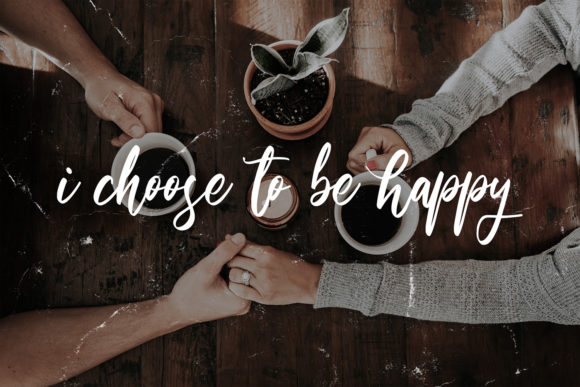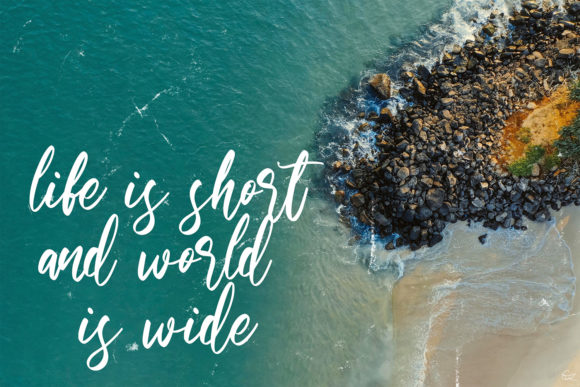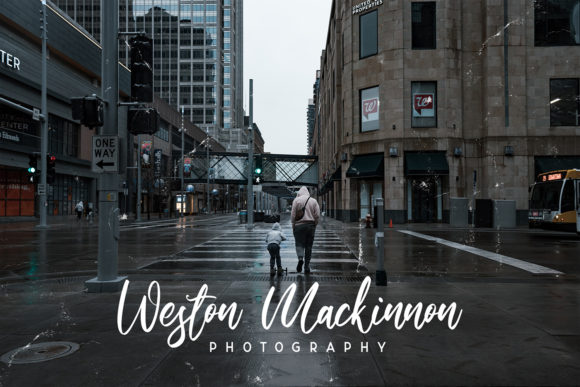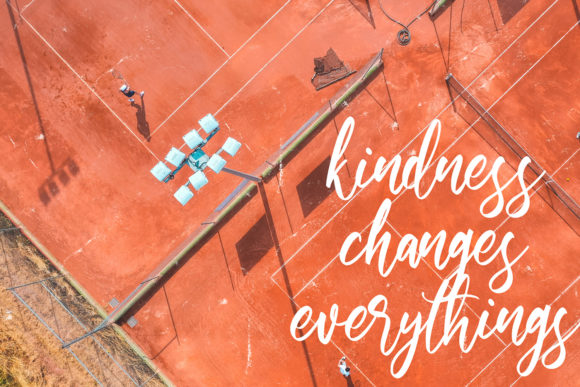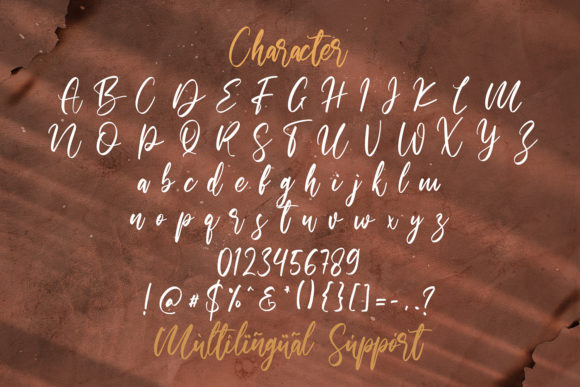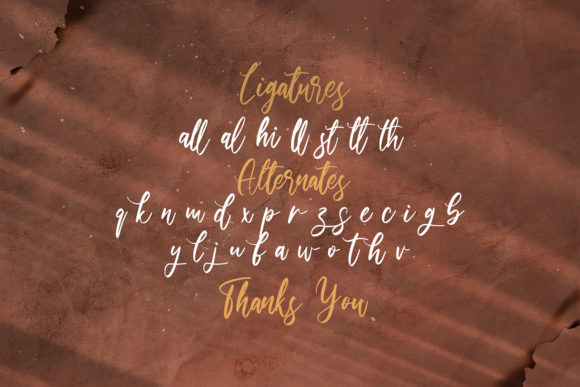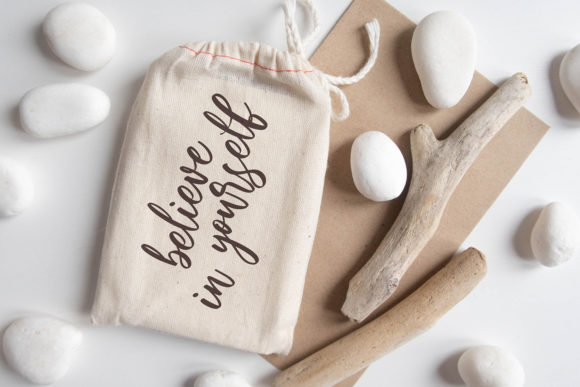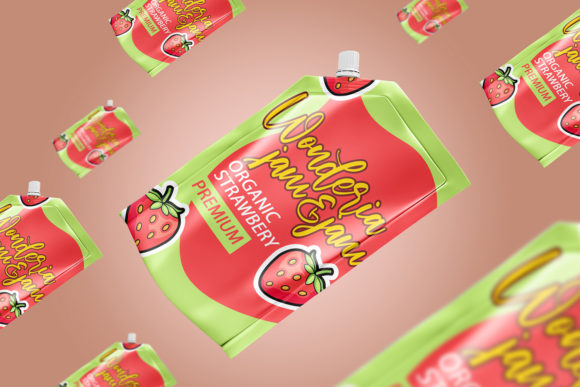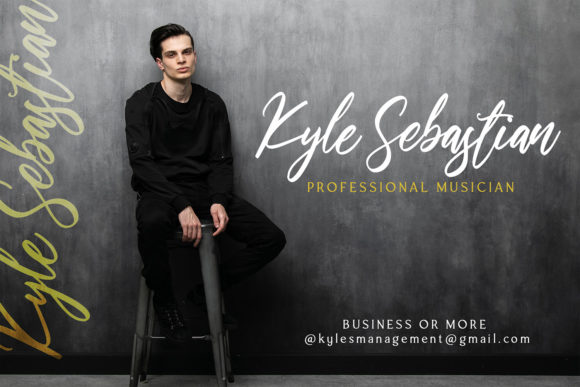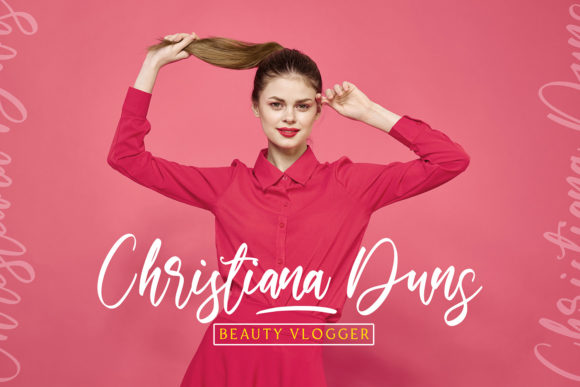
Walentiny Font
About Walentiny Font
Walentiny is a joyful and flowing handwritten font, designed with the help of a brush pen. Fall in love with its incredibly versatile style and use it to create gorgeous wedding invitations, beautiful stationary art, eye-catching social media posts, and much more!